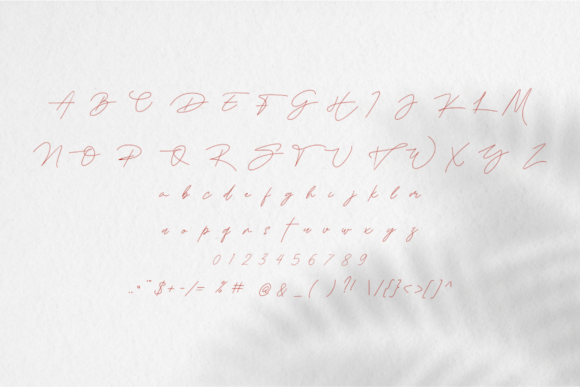
About Suprati Danita Font
“Suprati Danita” is more than just a font; it’s a testament to the art of delicacy and elegance, embodied in thin and meticulously crafted handwritten characters. With its dainty and joyful essence, this font becomes an ideal choice for projects requiring a personalized and romantic touch. Whether it’s wedding invitations, cards, or any design seeking a tender and intimate vibe, “Suprati Danita” stands ready to enhance your creative vision.
The font’s allure emerges from its seamless combination of thin delicacy and a joyful spirit. Each letter is carefully formed to contribute to an aesthetic that not only captures the eye but also evokes emotions of romance and personalized warmth.
As “Suprati Danita” graces your creative ventures, you’ll observe its transformative capacity. By incorporating this font into your projects, you’ll witness how it elevates and amplifies your ideas, infusing them with an intimate charm that resonates deeply.
In essence, “Suprati Danita” transcends the role of a mere font. It’s a vessel of delicacy and joy, meticulously designed to enrich visuals with an intimate, romantic touch. Its thin and delicate form, coupled with its dainty and joyful style, positions it as an invaluable tool for designers striving to create visuals that evoke emotions, establish connections, and create an enduring impact. With “Suprati Danita,” your designs don’t just communicate; they elicit feelings of love and joy that linger in the hearts of those who encounter them.